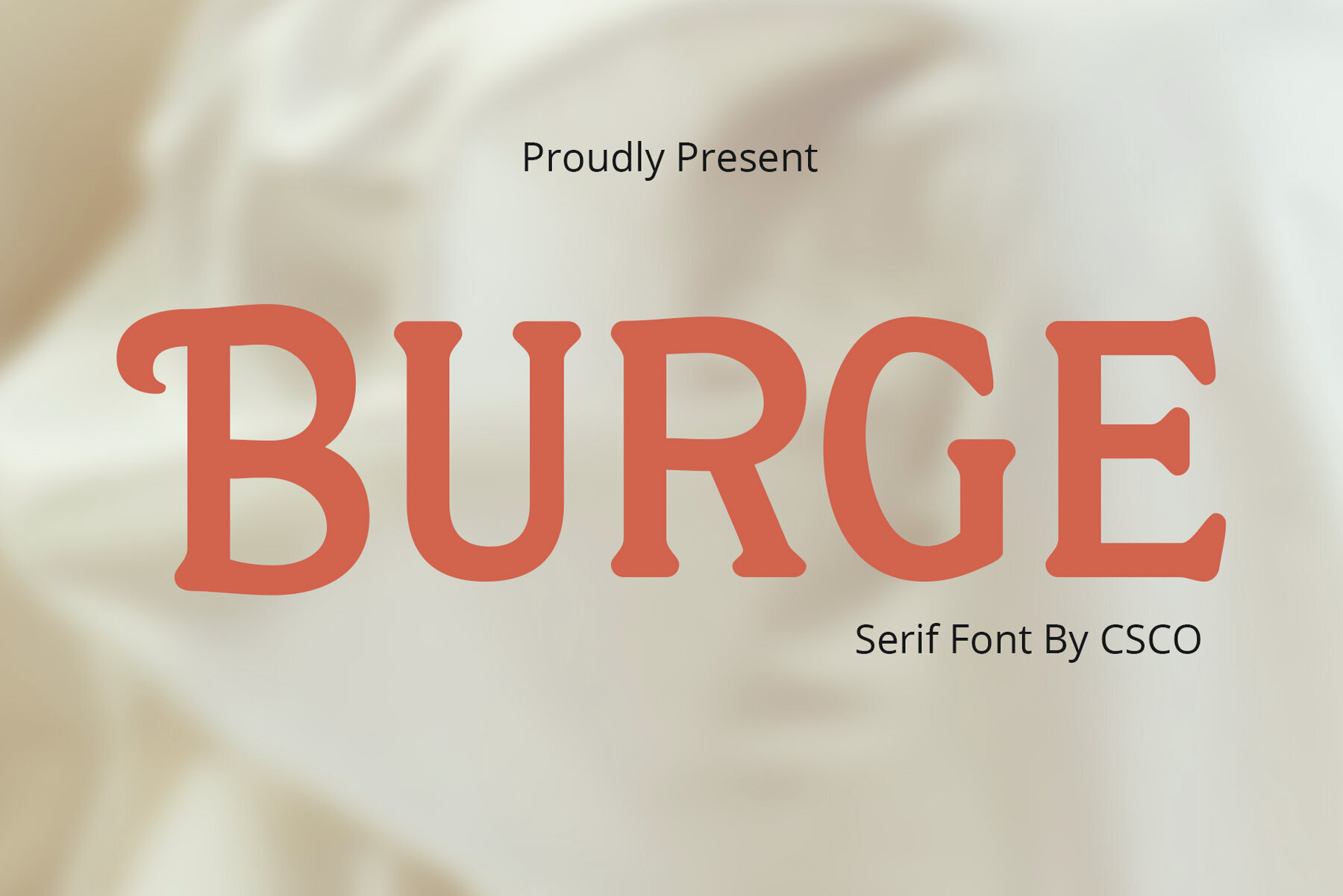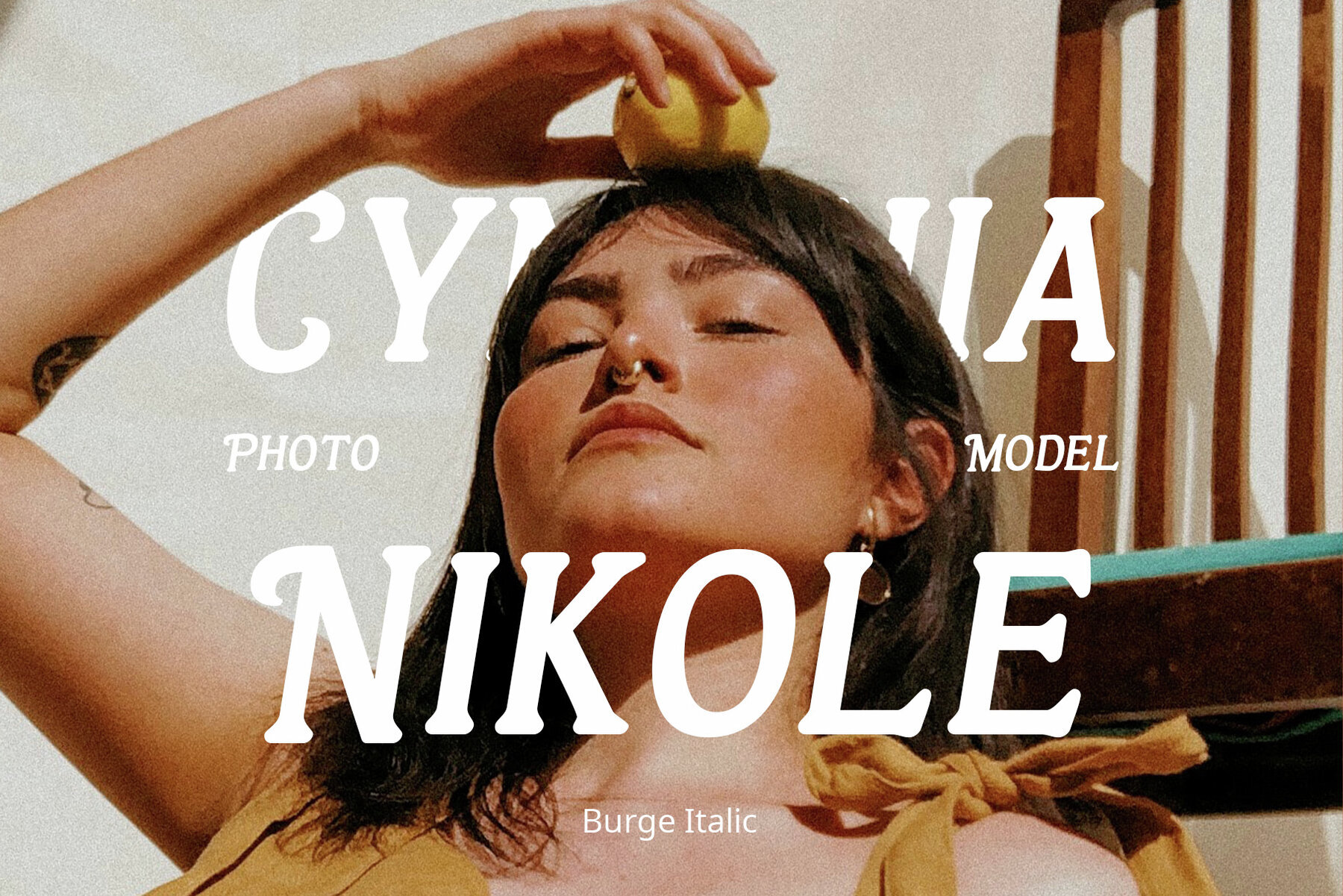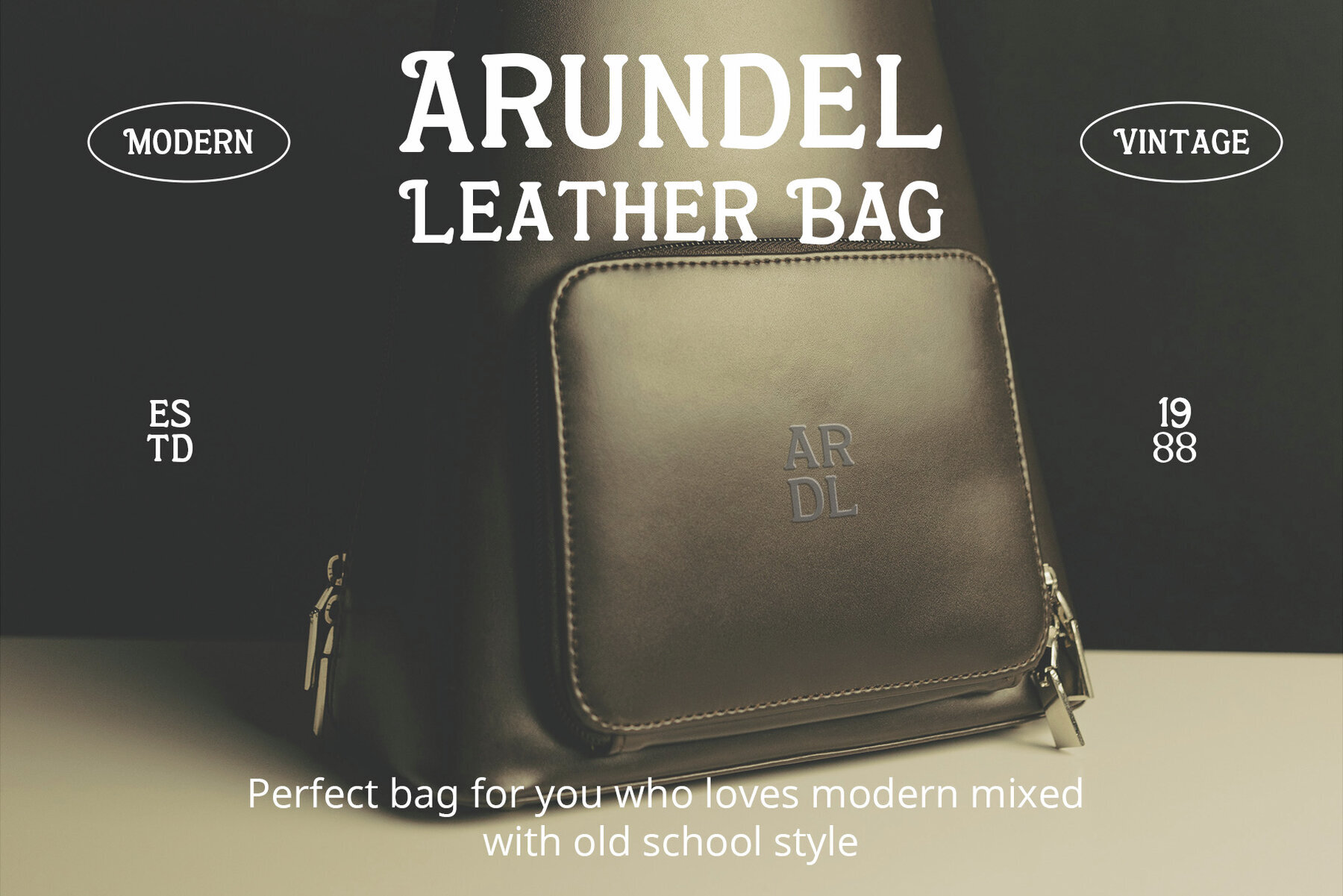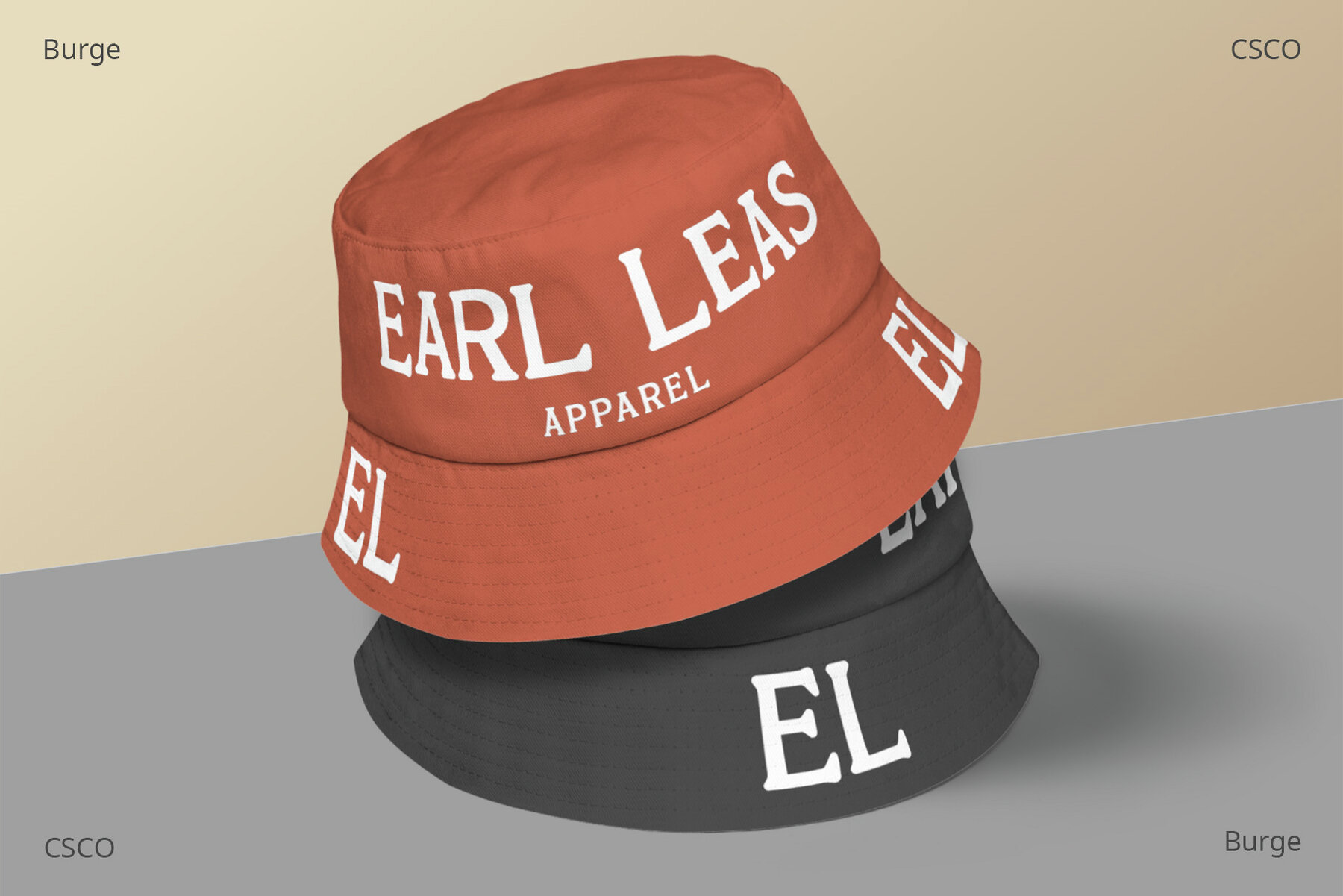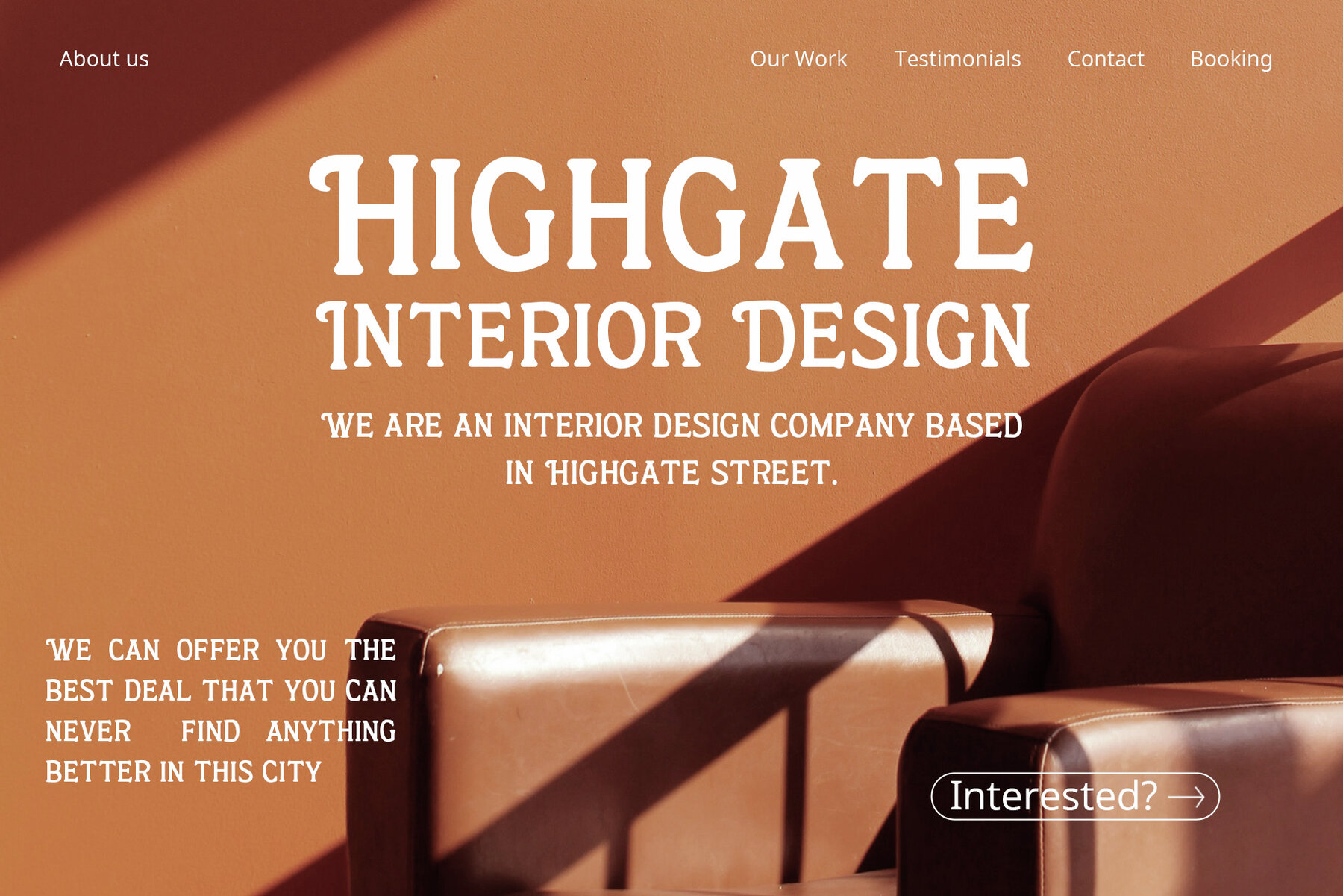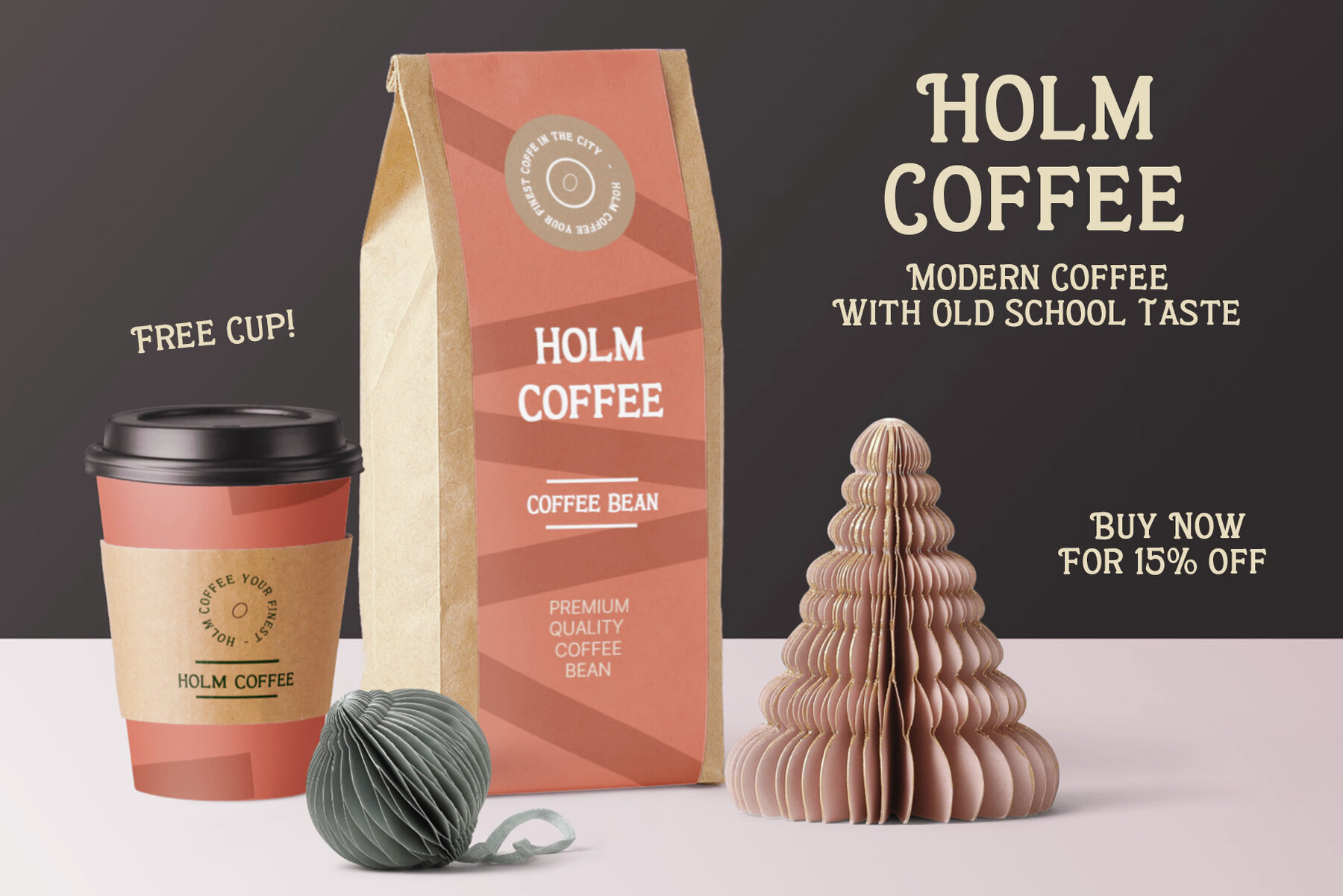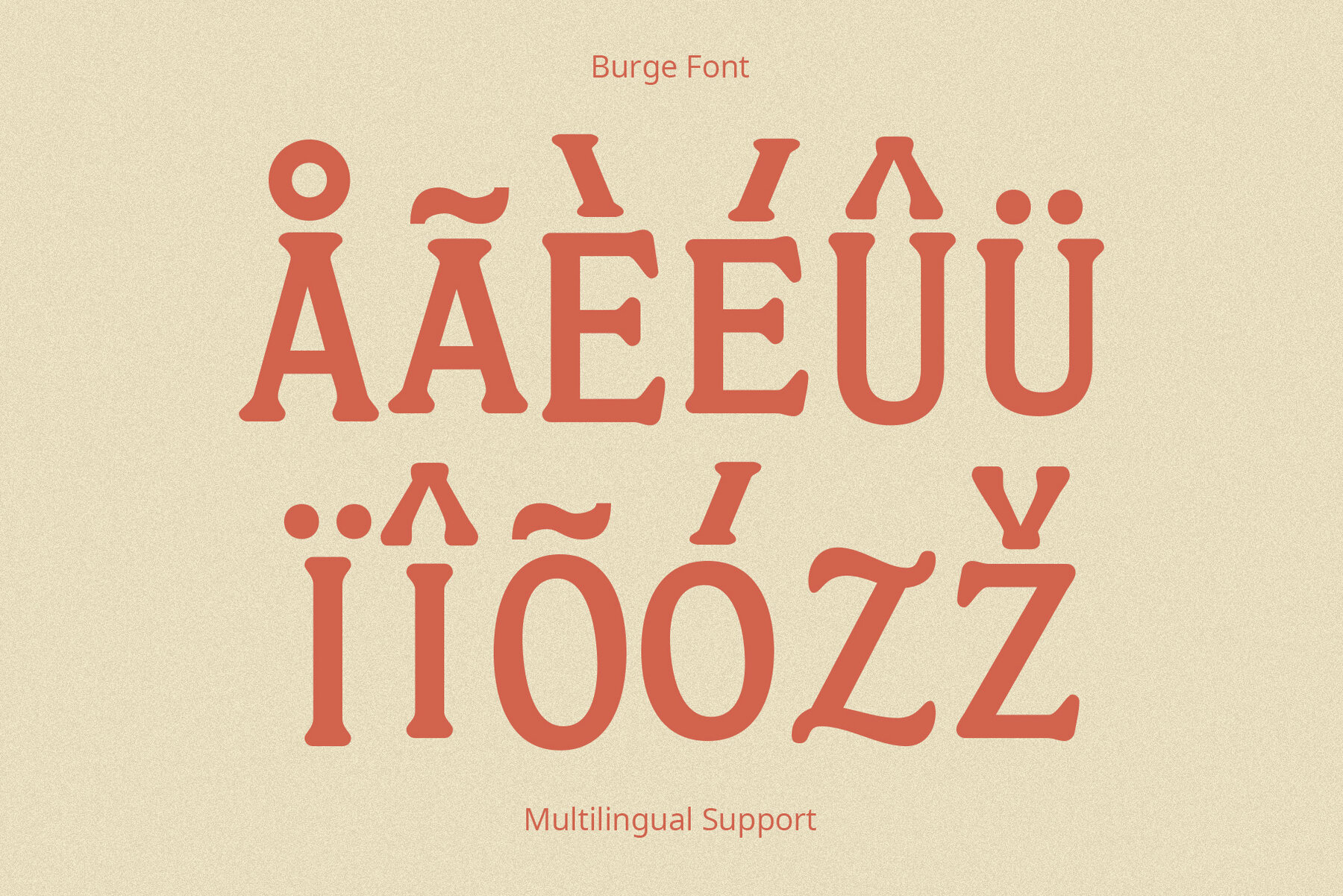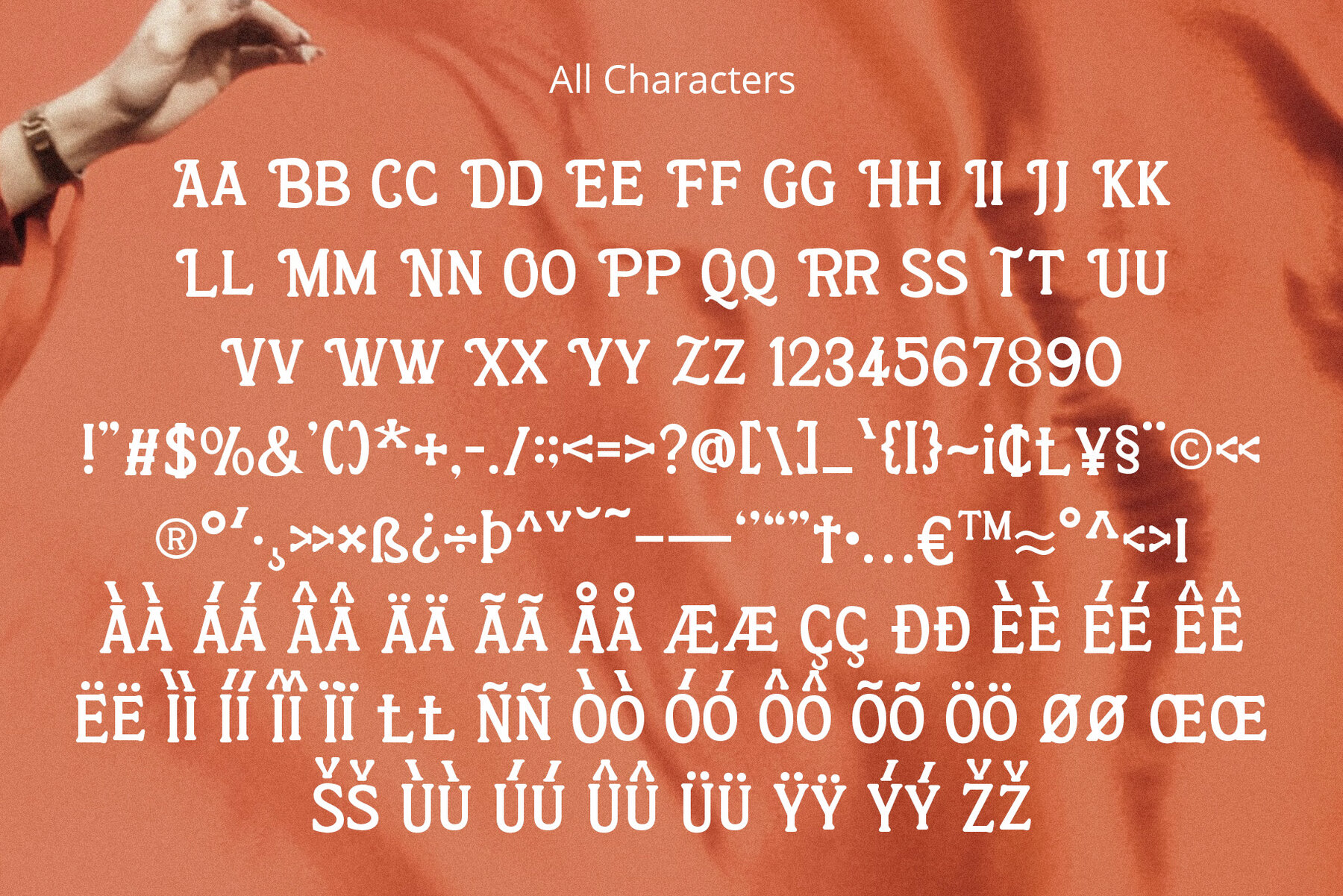
Burge Font
Meet Burge, the enchanting serif font with delightful round serifs that adds a unique charm to any design. This font is perfect for designers seeking to infuse their work with a playful and endearing touch. Burge features soft, round serifs that give it a distinctly playful and cute appearance. The carefully crafted letterforms evoke a sense of charm and friendliness, making it an ideal choice for eye-catching titles that demand attention. The versatility of Burge shines across a multitude of design projects. From posters and invitations to social media graphics, this font adds a delightful flair. Its rounded serifs ensure clarity and readability, even at smaller sizes. The whimsical charm of Burge attracts a wide audience. Its simplicity makes it user-friendly for designers of all skill levels. This font introduces a touch of cuteness to your creative pursuits, ensuring your titles make a memorable impact. With Burge, effortlessly bring an element of cuteness into your projects. The round serifs and charming letterforms make it an excellent choice for titles aiming for a playful and adorable vibe. What You Get: Features: This typeface is easy to use without needing any specialized software. If you have any inquiries or need assistance, please feel free to contact us. We appreciate your support in enhancing your creative projects!Burge: The Charming Serif with Round Appeal
Playful and Cute Design
Versatile Usage
Whimsical Appeal
Adding Cuteness to Your Designs